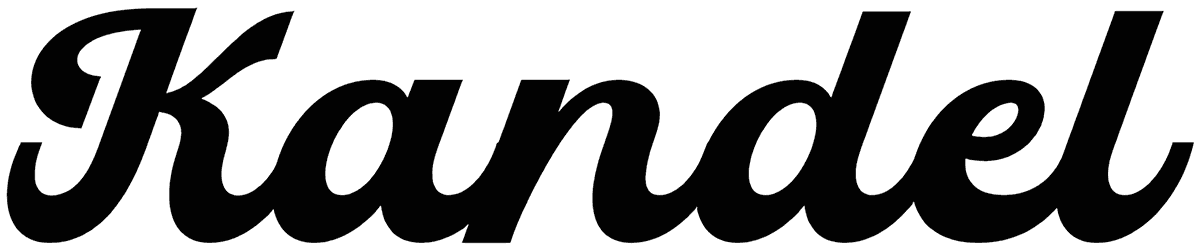
Kandel Font
Kandel is a bold script font that might remind you of classic movies and old signs. Every single character is carefully shaped to make your project more eye-catching and stand out from the rest.
Most letters have a twisted tail, and they form a connected style in the word. This font can be a good fit for casual apparel printing, sports brands, signage, poster designing, and snack logos.